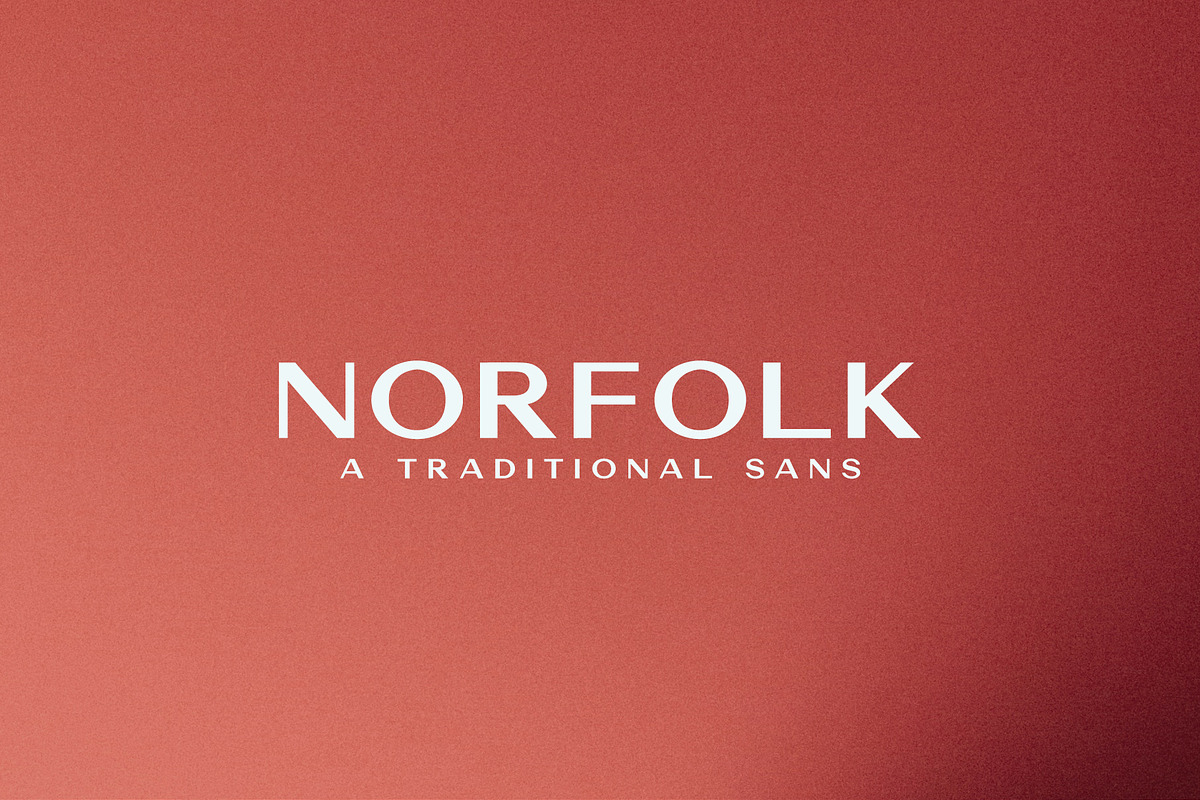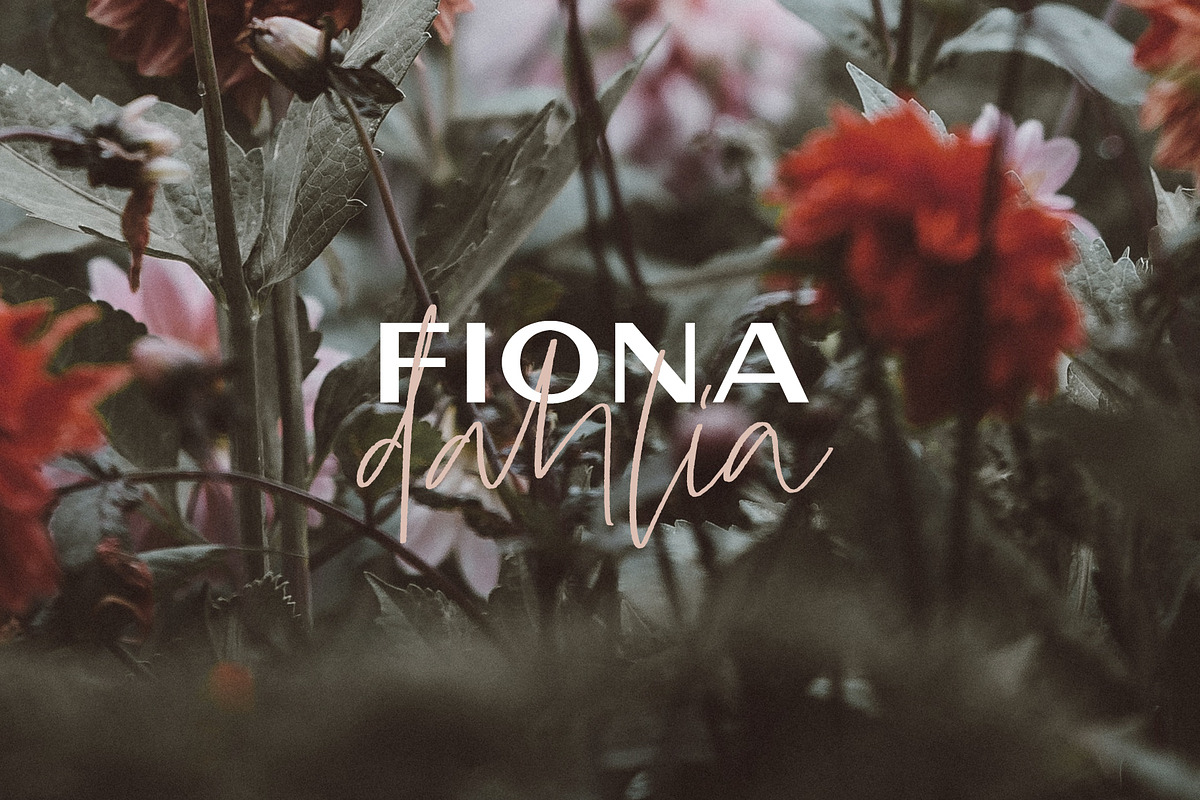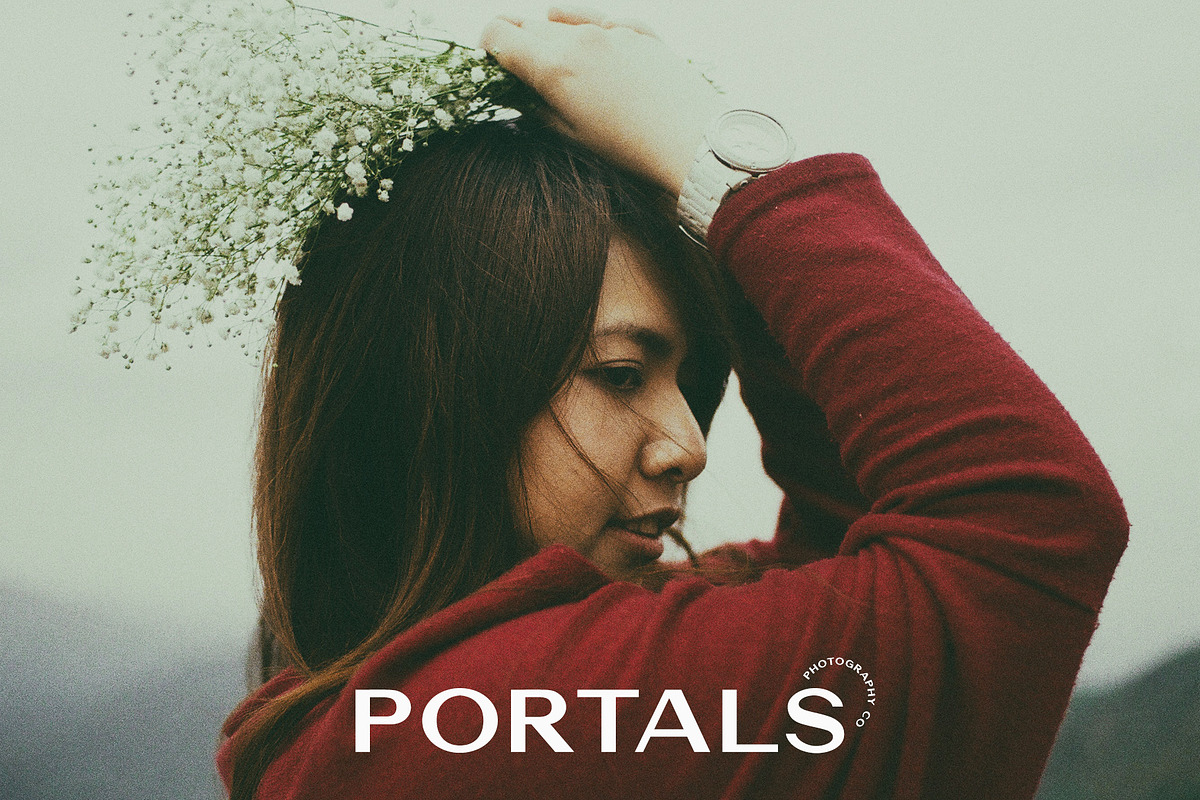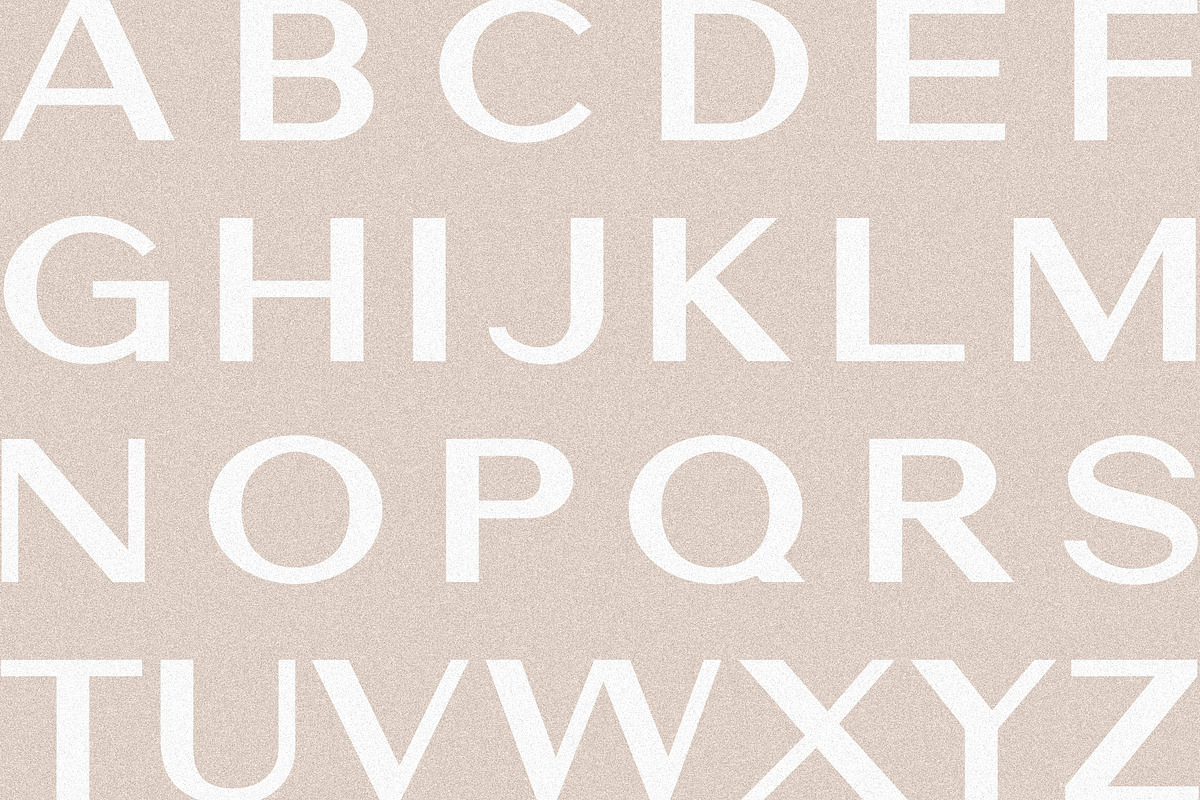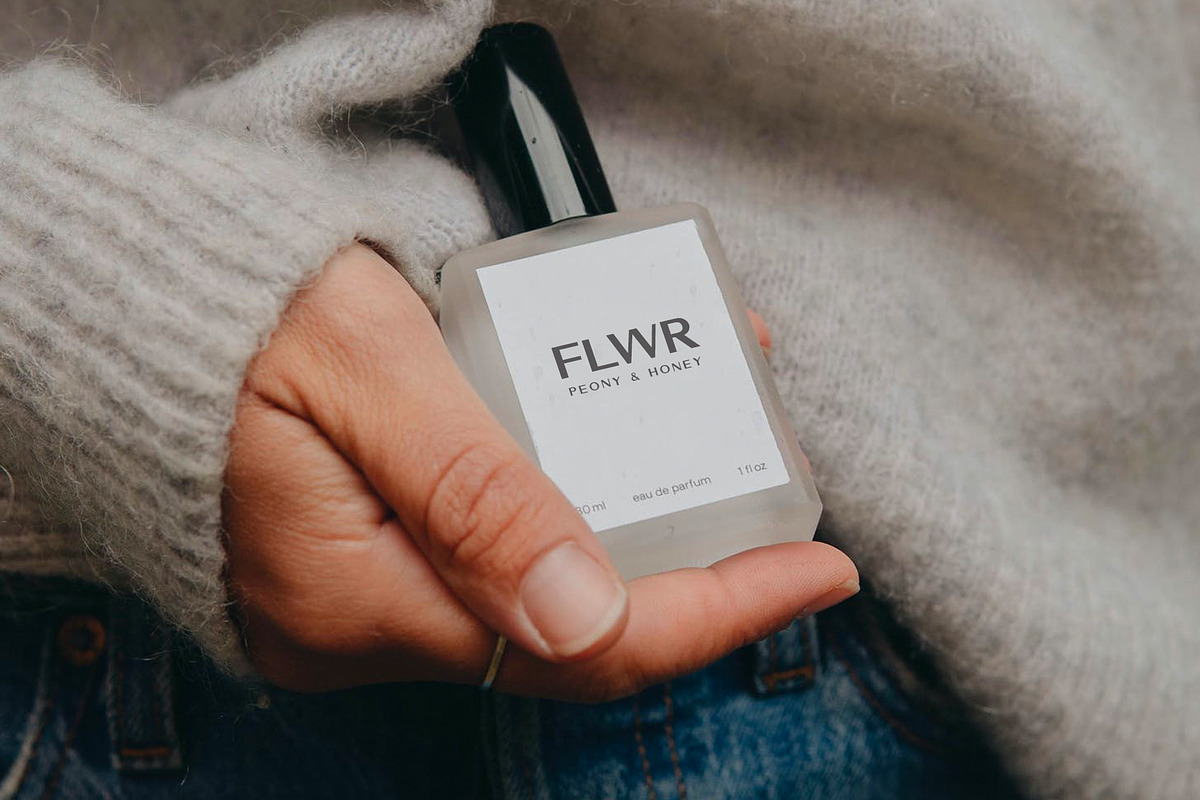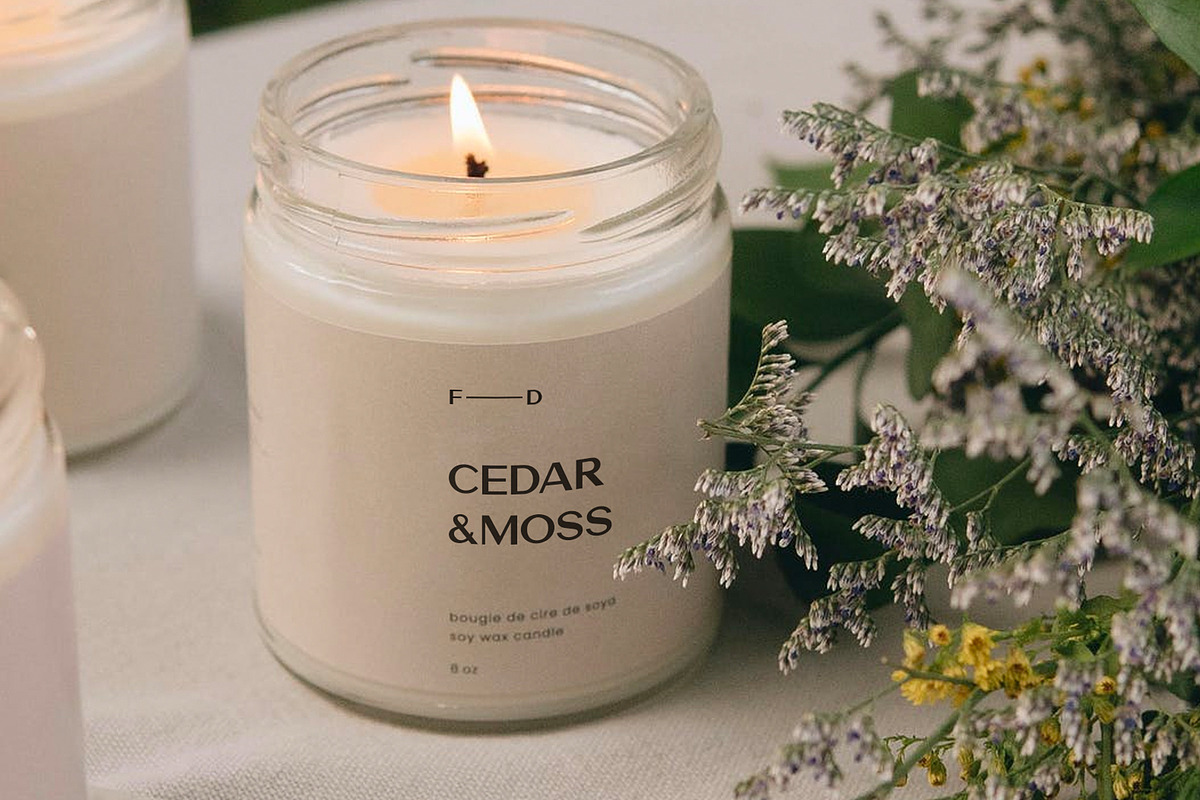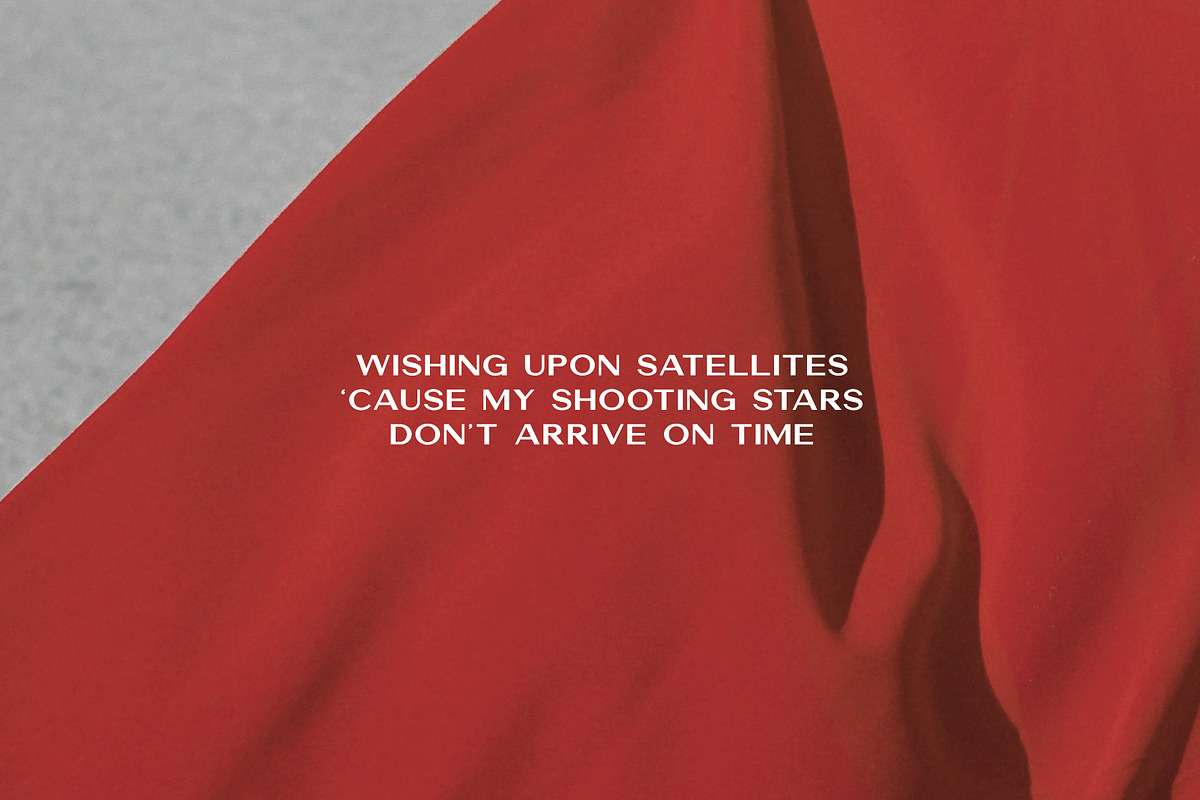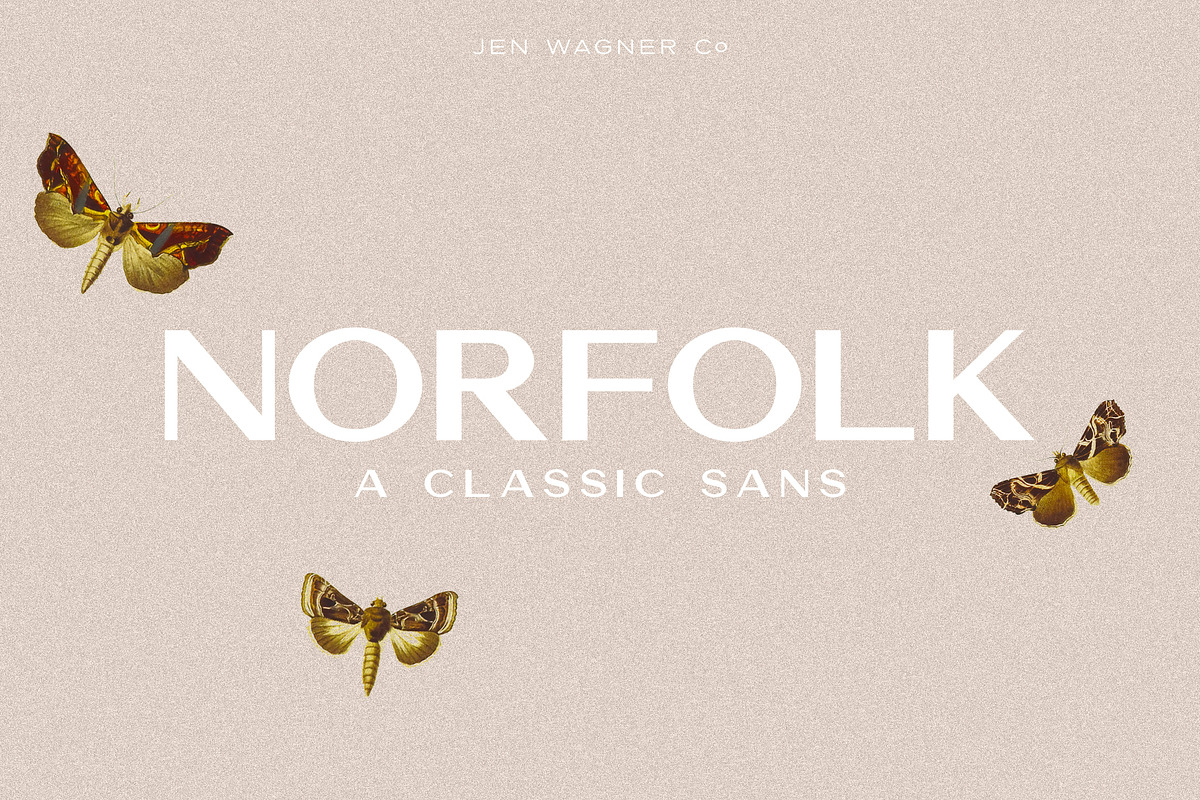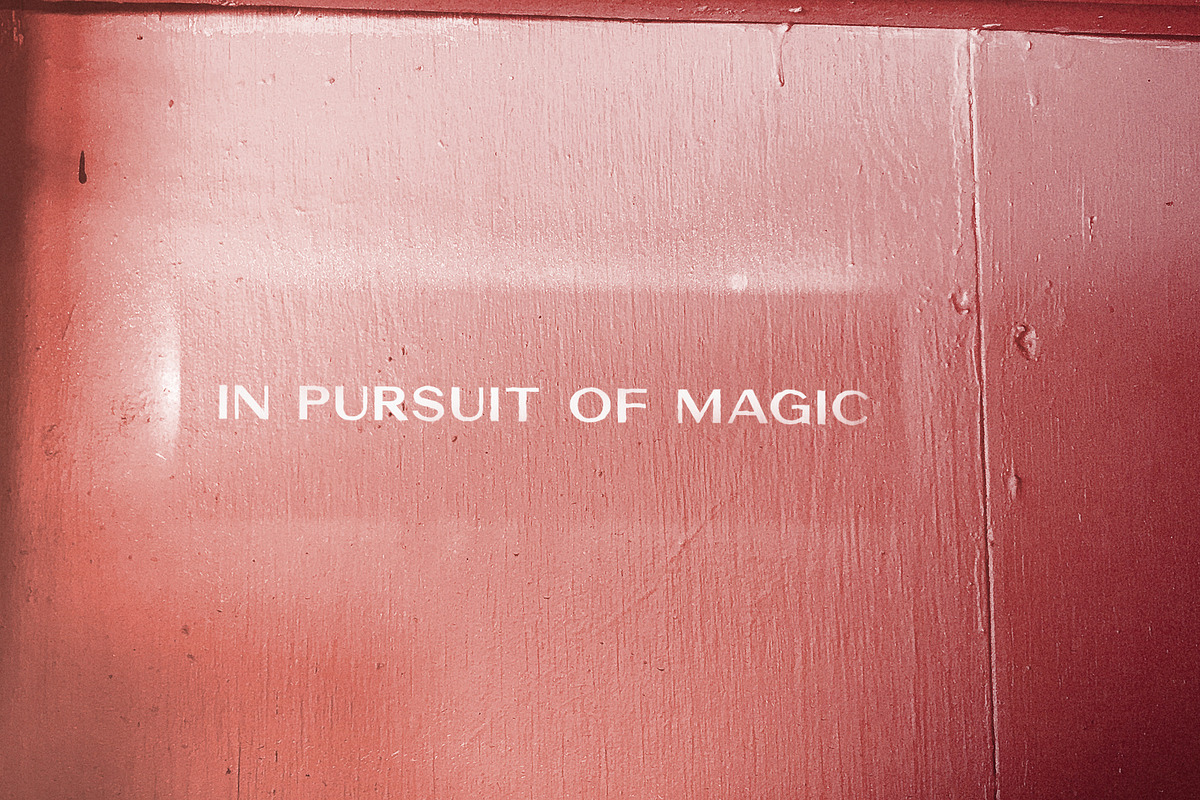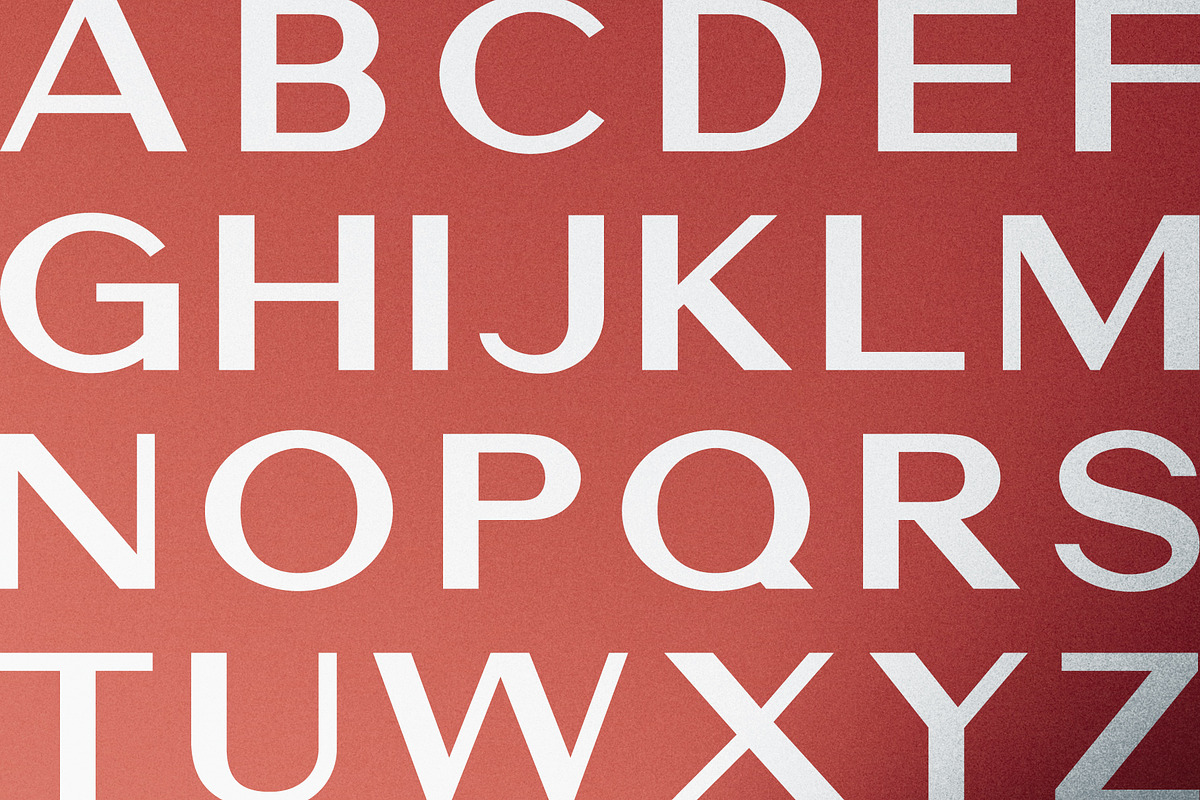
Norfolk | A Traditional Sans
Norfolk is a bold, classic sans that was inspired by the recent resurgence of mid-century design. With subtle contrast and clean lines, Norfolk is the perfect all-caps font for stunning logos!